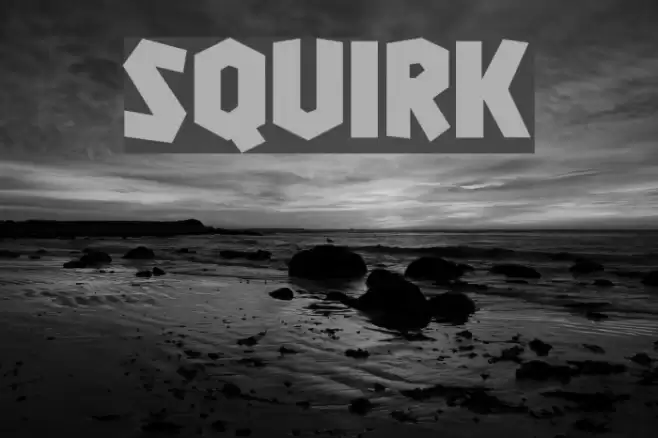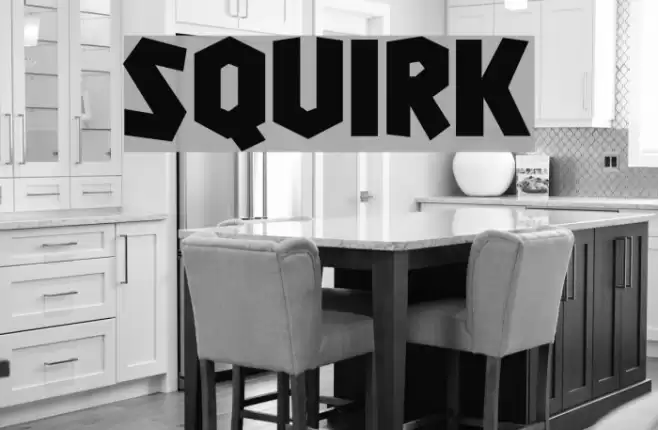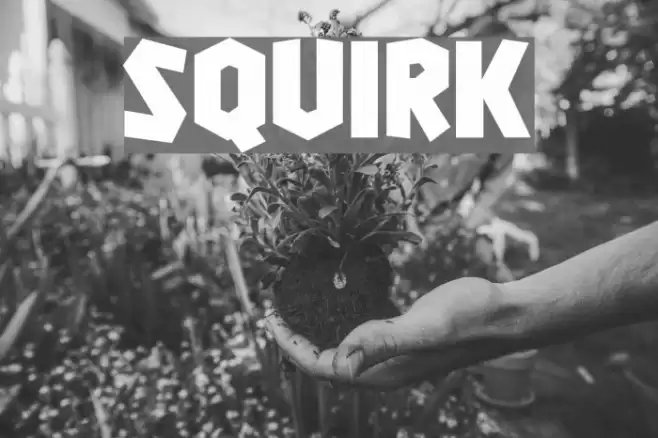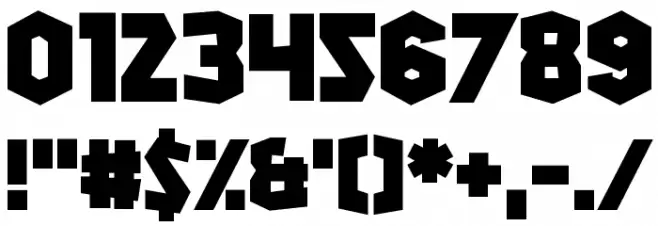
Squirk Font
Squirk Description
This font features a bold, angular design with a distinctly geometric style. The characters are heavily stylized, with sharp edges and a blocky appearance that conveys a sense of strength and modernity. The uppercase and lowercase letters maintain a consistent weight, contributing to a cohesive look. The numbers and special characters follow the same design principles, ensuring uniformity across all glyphs. This font's unique aesthetic makes it stand out, ideal for projects that require a strong visual impact. Its boldness and geometric shapes make it suitable for attention-grabbing headlines or logos.
A bold, angular font with a geometric and modern style from Uncategorized fonts.
- Proposed Projects: Ideal for branding, posters, headlines, and any project needing a strong, modern aesthetic.